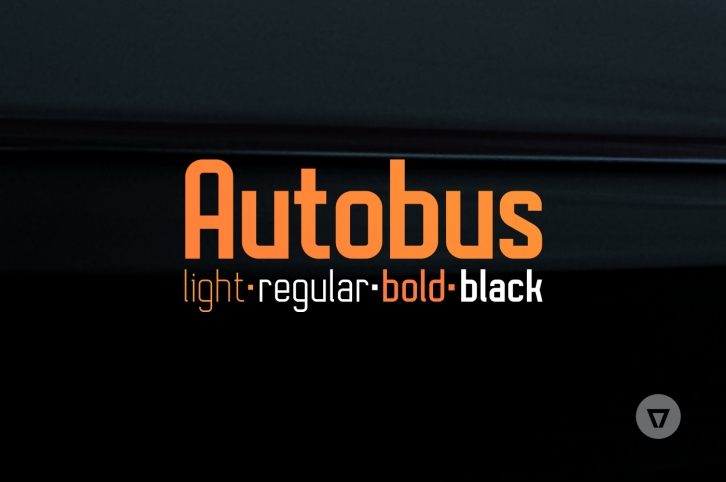
Autobus is a trendy and unique font with an authentic style. It was designed by NimaVisual and it's a great choice for creative people who need such a font. It was released on October 30, 2017 and the file size is 17.77 MB. Autobus will add an organic vibe to any design idea!